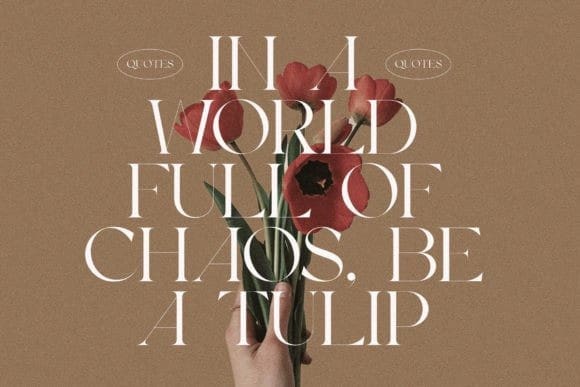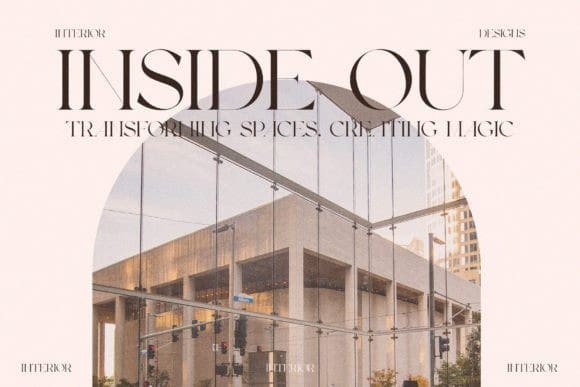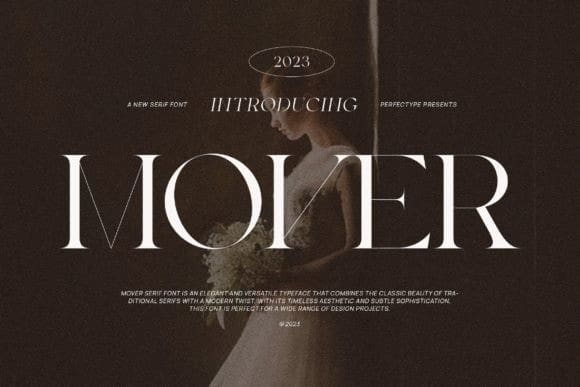
Mover Font
Mover Font is a unique and very elegant serif font. This type of font is very suitable for your various needs such as branding projects, logos, wedding designs, social media posts, advertisements, product packaging, product designs, labels, photography, watermarks, invitations, stationery, and any project, created with high level of readability.